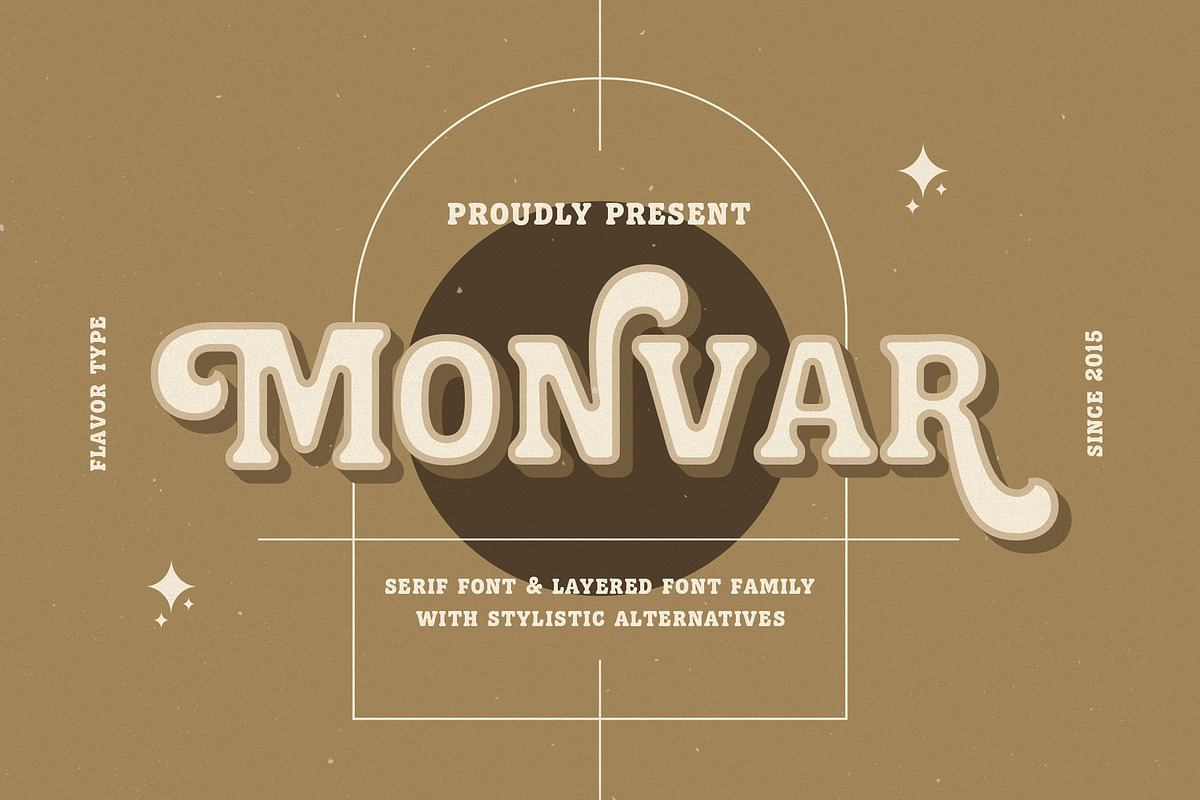
Monvar Cooper Layered Fonts Free Download is a playful and bold typeface family inspired by classic Cooper-style lettering with a modern twist. Featuring multiple layered styles, Monvar is perfect for headlines, posters, merchandise, packaging, and branding that demands fun, dimension, and personality.
Whether you're designing retro-inspired graphics or a modern brand identity with vintage flair, Monvar brings energy and versatility to your typography. It’s the ideal choice for designers who want to make their text pop with playful, eye-catching depth.